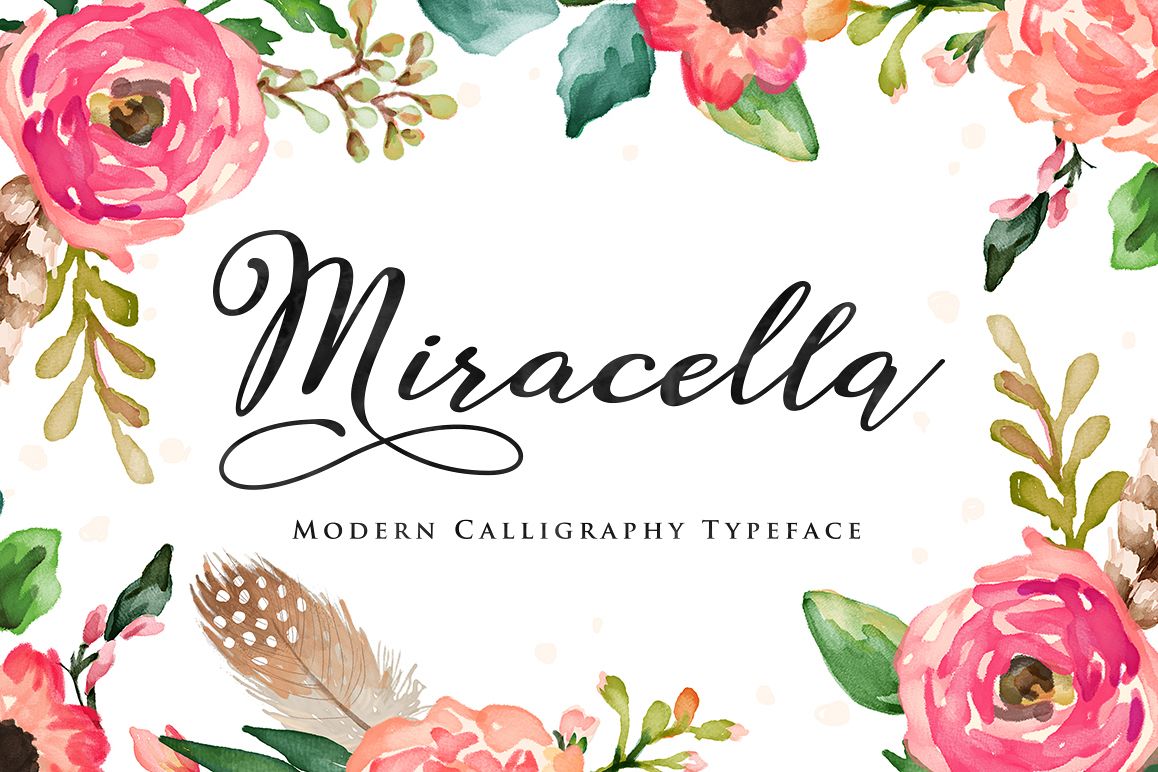
Introducing Miracella Script
Miracella Script is a new handwritten stylish copperplate calligraphy fonts, combines from copperplate to contemporary typeface, classic and elegant touch.
Miracella Script features 530 glyphs and 342 alternate character contain with opentype features. Stylistic alternates, Swash Alternates, Ligature and more. You can access all those alternate characters by using OpenType savvy programs such as Adobe Illustrator, Adobe InDesign and CorelDraw X6-X7.
Miracella Script is suitable for Apparel Brand, any greeting cards, Painting design style, or any design that needs natural and personal touch. Mix and match the alternate characters to add an attractive message to your design.
Features of Miracella Script is;
-Swash Alternates
-Contextual Alternates
-Standard Ligatures
-Stylistic Alternets
-Stylistic Sets